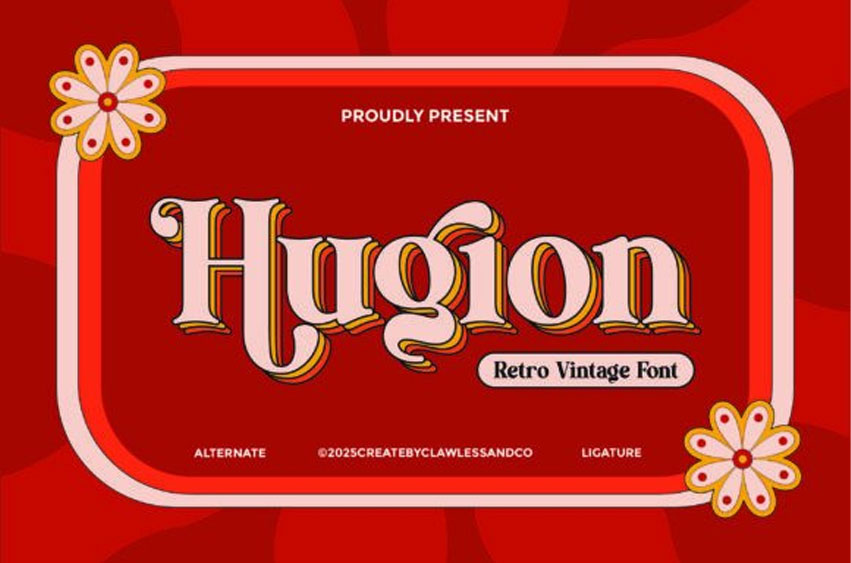
Hugion Font is a charming retro vintage font inspired by classic signage and old-school typography. With bold curves, ornate details, and layered shadows, Hugion brings nostalgic flair and a groovy attitude to your designs.
Perfectly suited for vintage branding, posters, packaging, apparel, and retro-themed projects, Hugion includes alternates and ligatures to give your text a custom, handcrafted feel. Whether you’re channeling the vibes of the ’60s, ’70s, or simply want to add a playful retro twist, Hugion is your go-to typeface for eye-catching and memorable designs.